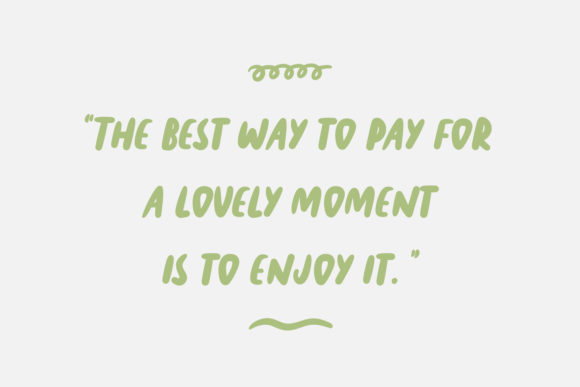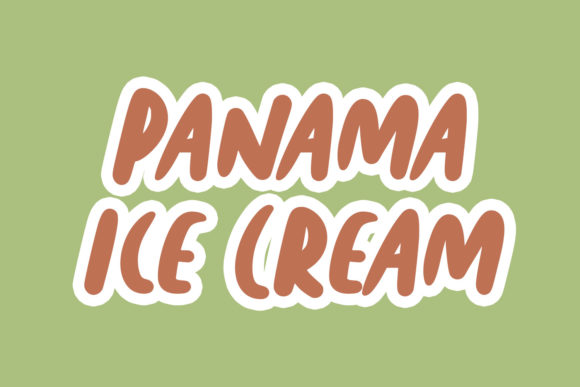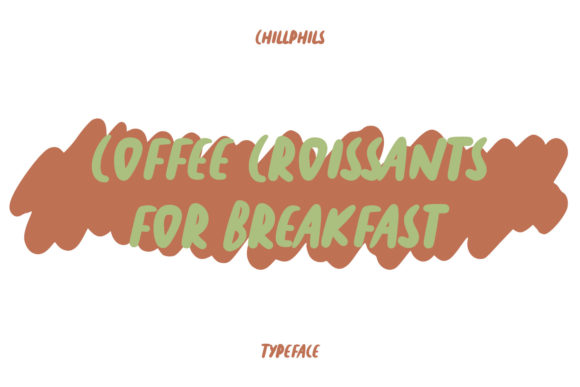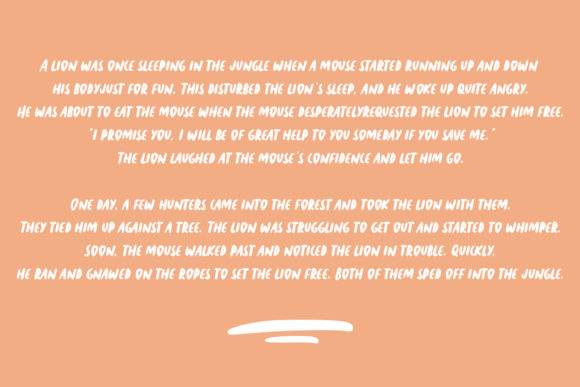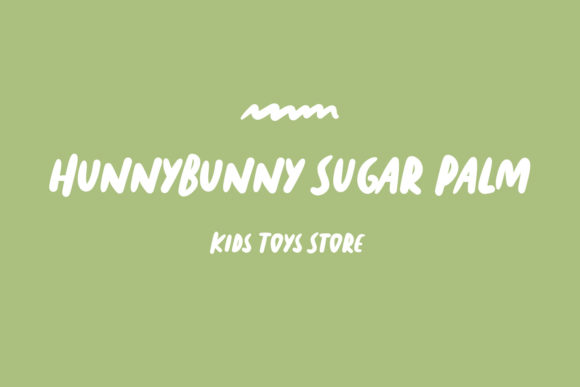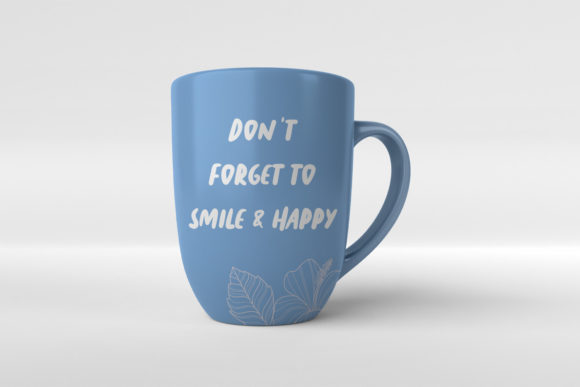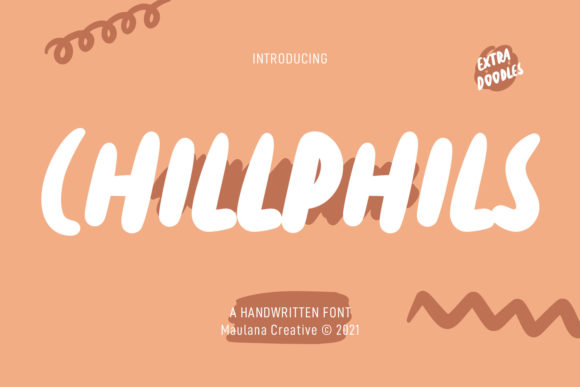
Introducing Chillphils Font: The Cute and Casual Display Font You Need
Are you tired of using the same old fonts in your designs? Do you want to add a touch of personality and whimsy to your creations? Look no further than Chillphils Font, a cute and paint-brushed display font that’s sure to bring your designs to life. In this article, we’ll take a closer look at Chillphils Font, its features, and how you can use it to elevate your designs.
What is Chillphils Font?
Chillphils Font is a unique and charming display font that’s perfect for designers and crafters who want to add a casual and friendly touch to their work. This font features a paint-brushed style that’s reminiscent of hand-painted signs and artwork. With its bold and playful letters, Chillphils Font is sure to make a statement in any design.
Key Features of Chillphils Font
- Cute and playful design: Chillphils Font features a unique and charming design that’s perfect for creating eye-catching headlines and titles.
- Paint-brushed style: The font’s paint-brushed style gives it a hand-painted look that’s perfect for adding a touch of personality to your designs.
- Casual and friendly vibe: Chillphils Font has a casual and friendly vibe that’s perfect for designs that need to feel approachable and relatable.
- Easy to read: Despite its playful design, Chillphils Font is easy to read, making it perfect for use in headlines, titles, and other applications where readability is important.
How to Use Chillphils Font
Chillphils Font is a versatile font that can be used in a variety of design applications, including:
- Graphic design: Use Chillphils Font to create eye-catching posters, flyers, and brochures that showcase your brand’s personality.
- Digital design: Add Chillphils Font to your website or social media graphics to give them a playful and approachable feel.
- Crafting: Use Chillphils Font to create handmade cards, gift tags, and other craft projects that require a personal touch.
Tips for Using Chillphils Font
- Use it sparingly: While Chillphils Font is a beautiful font, it can be overwhelming if used too much. Use it sparingly to create a focal point in your design.
- Pair it with other fonts: Chillphils Font pairs well with other fonts, especially sans-serif fonts. Experiment with different font combinations to find the perfect pairing.
- Experiment with colors: The paint-brushed style of Chillphils Font looks great in a variety of colors. Experiment with different colors to find the one that works best for your design.
Chillphils Font is a unique and charming display font that’s perfect for designers and crafters who want to add a casual and friendly touch to their work. With its cute and playful design, paint-brushed style, and easy readability, Chillphils Font is sure to bring your designs to life. Whether you’re working on a graphic design project, digital design, or crafting project, Chillphils Font is a great choice. So why not give it a try and see how it can elevate your designs?
Overall, Chillphils Font is a great addition to any designer’s or crafter’s toolkit. Its unique and charming design, combined with its versatility and ease of use, make it a font that’s sure to be used again and again. So why not give Chillphils Font a try today and see how it can bring your designs to life?